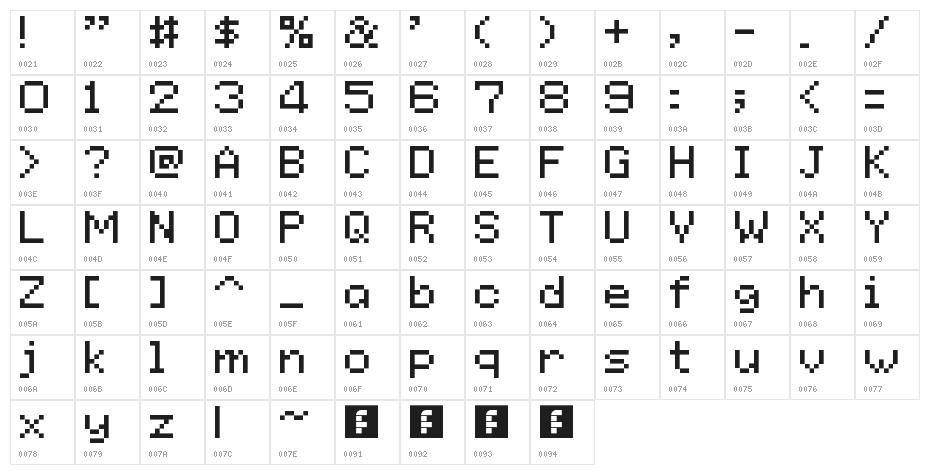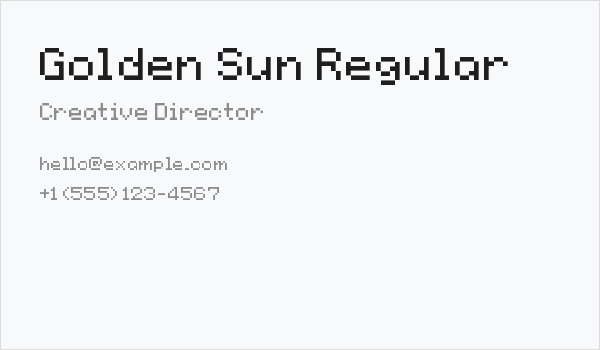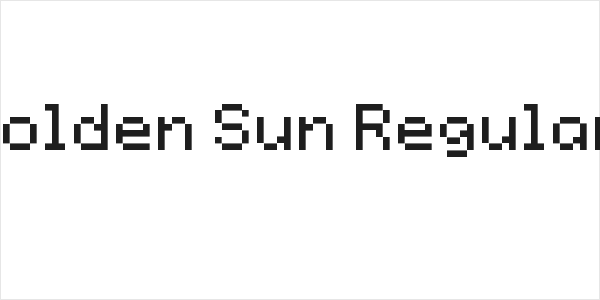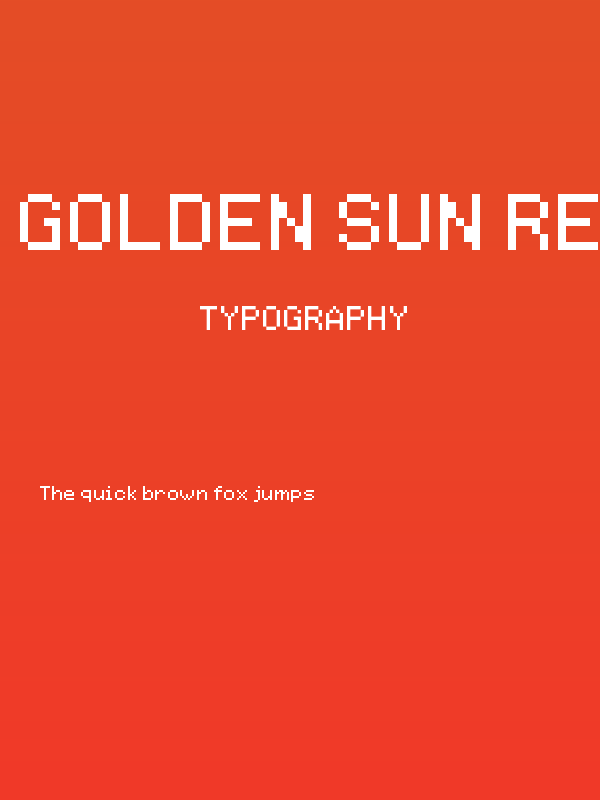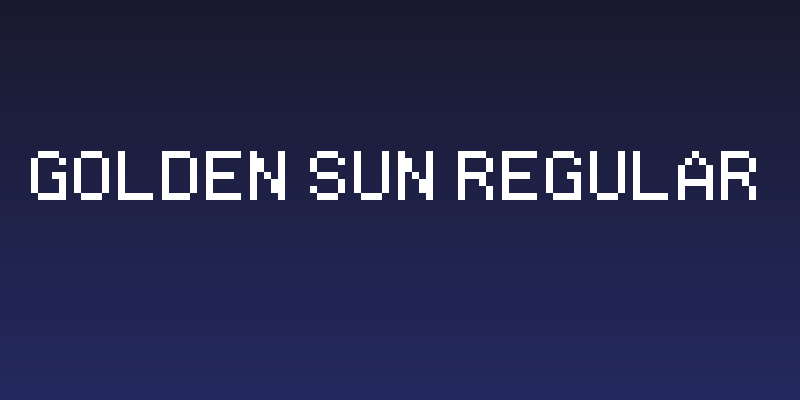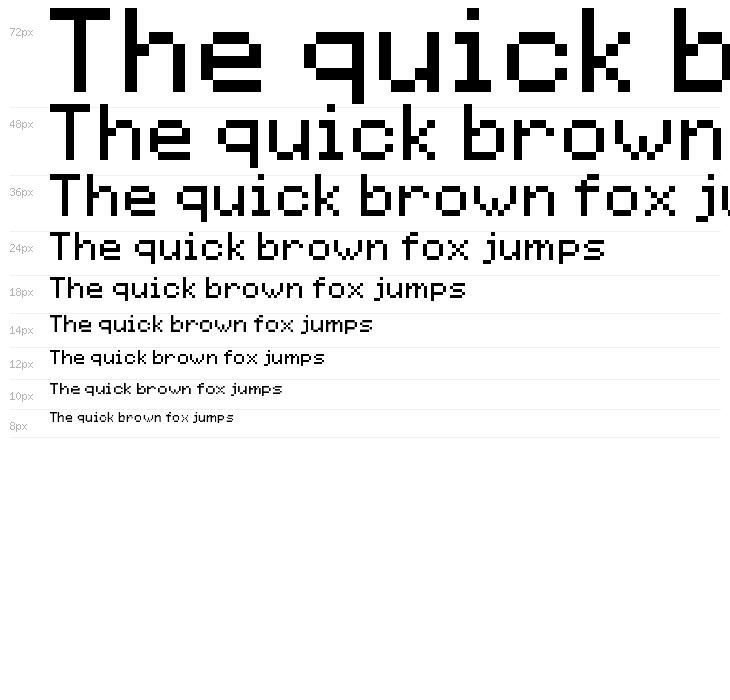
Golden Sun Regular Font
Golden Sun Regular Description
This font features a pixelated, blocky design reminiscent of early digital displays and video games. Each character is constructed with a grid-like precision, giving it a distinctly retro and digital aesthetic. The uppercase and lowercase letters maintain a consistent height, while the numerals and special characters follow the same pixelated style. The uniformity in character width and height contributes to a monospaced appearance, making it ideal for coding or any digital-themed projects. The font's simplicity and clarity ensure readability even at smaller sizes, while its unique style adds a nostalgic touch to any design.
| Overall Style | Retro, Digital |
| Use Case | Headlines, Logos, Digital displays |
| Proposed Projects | Ideal for retro video game designs, digital art projects, coding interfaces, and any creative work that requires a nostalgic digital aesthetic. |